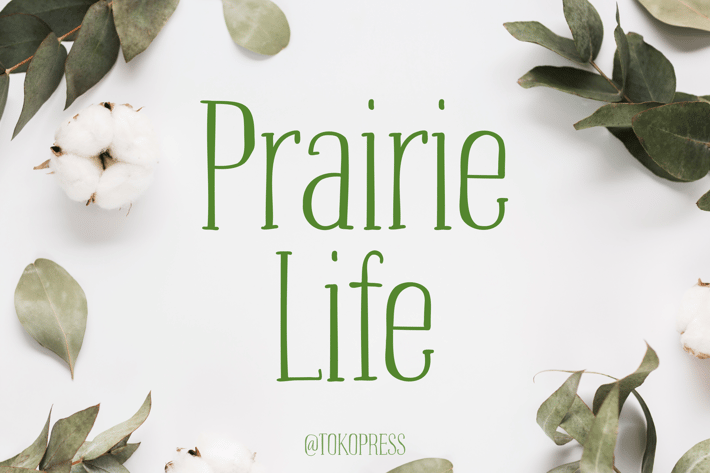
Prairie Life - Girly Font
Prairie Life – Soft Luxury Font
Prairie Life is a high-contrast modern serif font designed for brands seeking elegance, warmth, and calm sophistication. With elongated vertical stems, delicate proportions, and gentle curves, this typeface embodies a minimalist yet editorial feel. Its airy rhythm and sharp serifs evoke a sense of quiet luxury and refined beauty.
Ideal for fashion labels, perfume brands, wedding stationery, and slow-living content, Prairie Life elevates designs with a visual softness while maintaining a professional and upscale tone. Its letterform structure creates vertical elegance with an editorial edge, making every word feel composed and graceful.
Whether you're designing a coffee quote, a YouTube thumbnail, or a dream hotel brochure, Prairie Life transforms text into lifestyle. Its clean but expressive details create emotional resonance—making it perfect for high-end product packaging, social media content, minimalist branding, or inspirational editorial layouts.
The font’s calm yet impactful character lets you tell stories in design that feel deliberate, serene, and refined. Perfect for brands seeking timeless femininity or a fresh modern elegance.
Key Features :
Calm vertical contrast with soft, extended stems
Fashion-magazine inspired, great for editorial layouts and luxury branding
Lightweight structure for upscale visual tone
Ideal for beauty products, perfume ads, spa menus, and boutique packaging
* Clear, modern legibility with a high-end flair